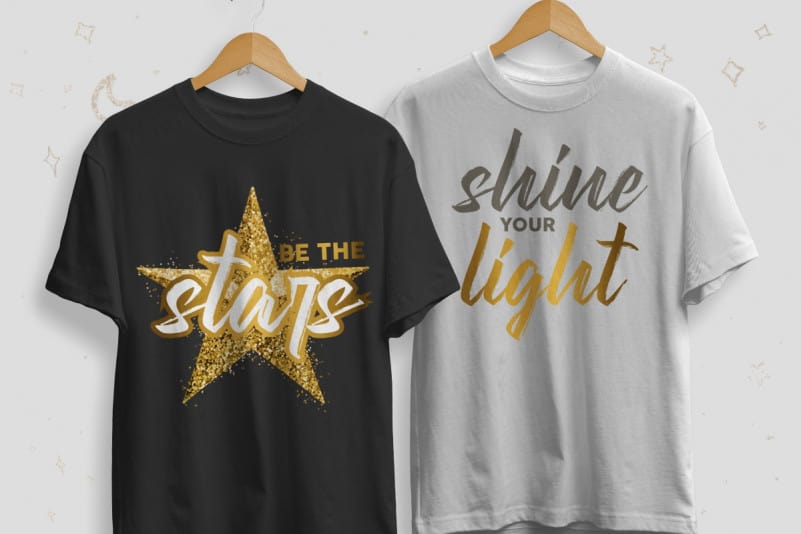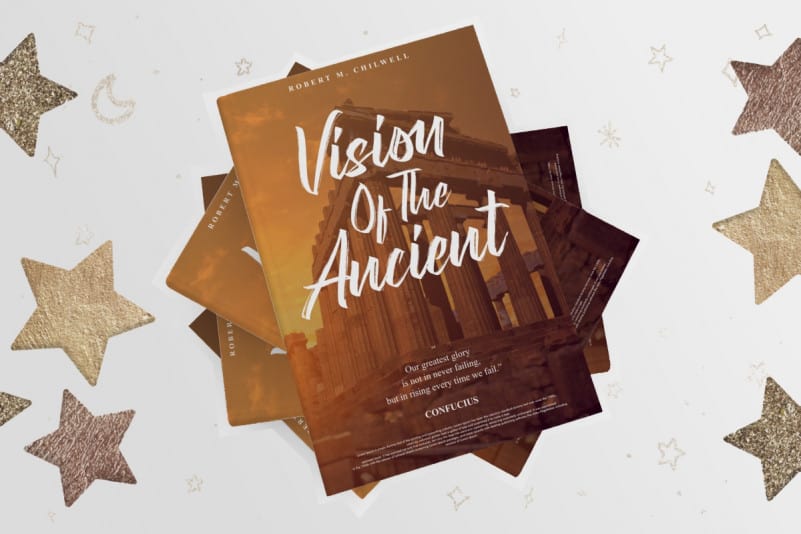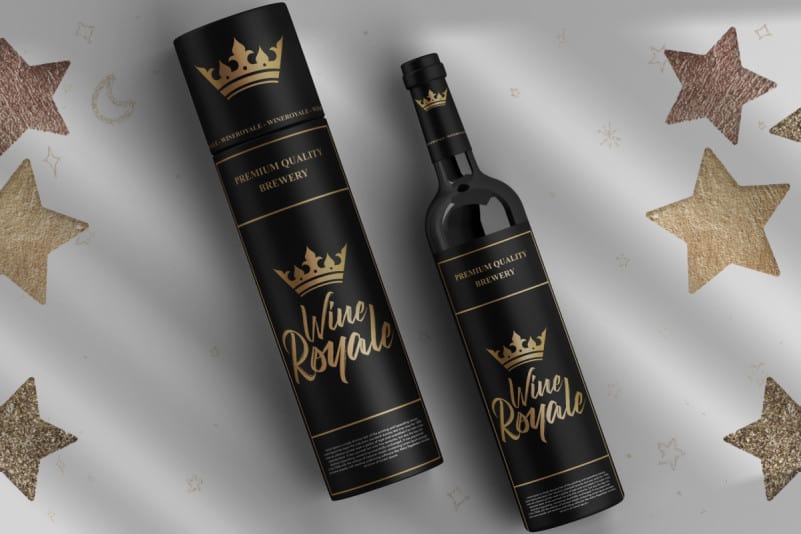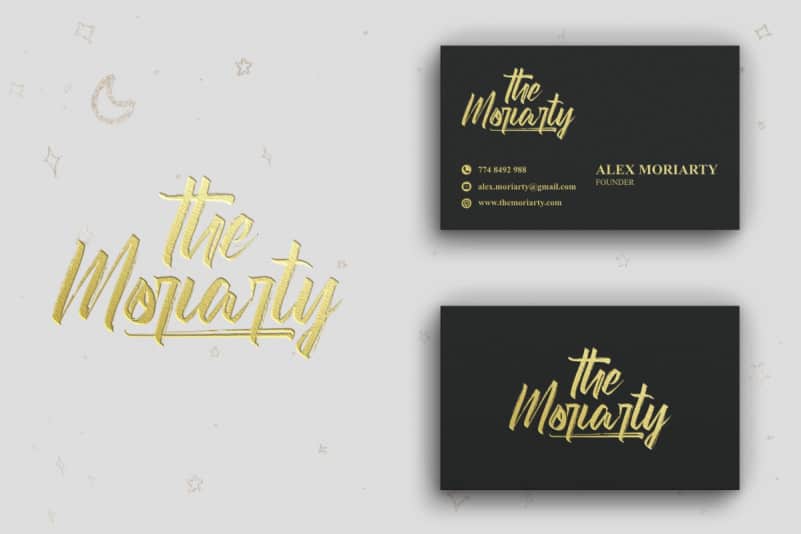
Starlingers Brush Font
Starlingers Brush Font is remotely made in Bandung and Garut, Indonesia. The font was handcrafted for any your special projects including : headlines, promotion, events, branding, advertising, magazine, signage, invitation, stationery, social media posts, label, or and any projects that need unique strong style. The theme/industries of this font is Vintage, Horror, Movie, Game, Magazine, Music, Video, Sports, Racing etc
Starlingers Brush Font includes full set of AWESOME uppercase letters, numerals, a large range of punctuation and ligatures. With a unique textured effect.